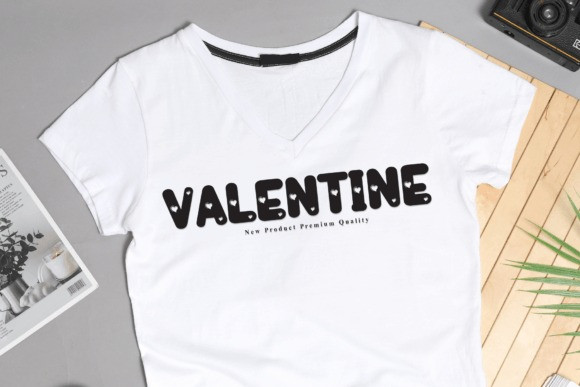
Love Daily Font
Love Daily Font is a fun and bold display font. Each letter has cute hearts inside the thick lines, making it perfect for expressing love and joy in your designs. It’s great for cards, posters, and anything that needs a playful touch!